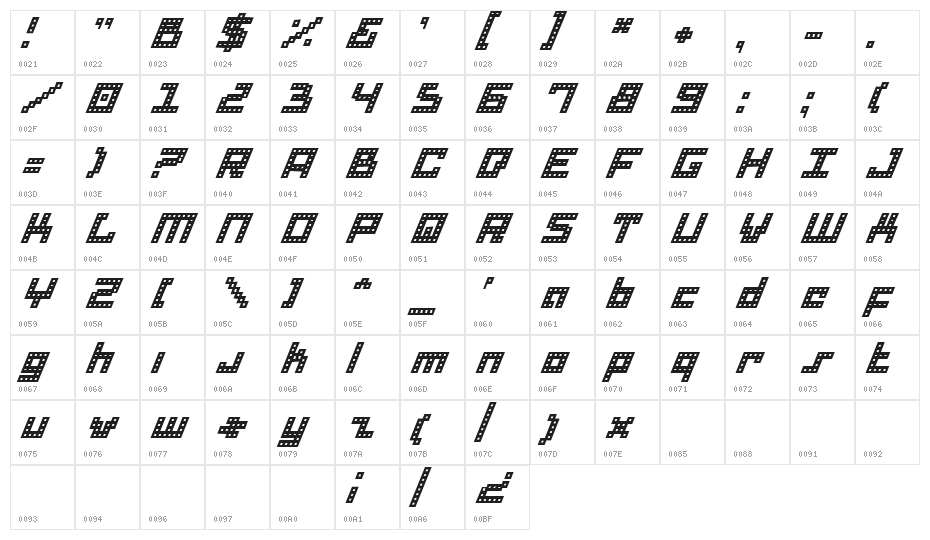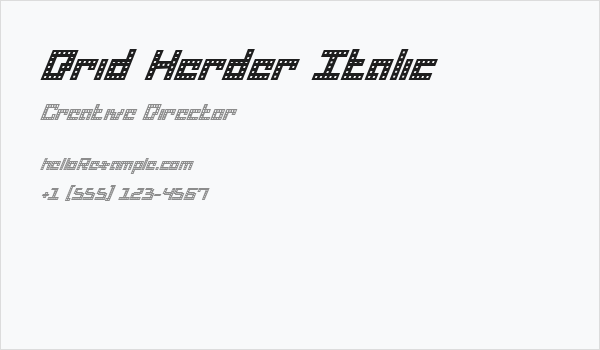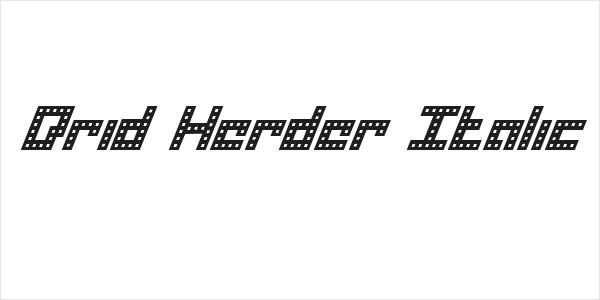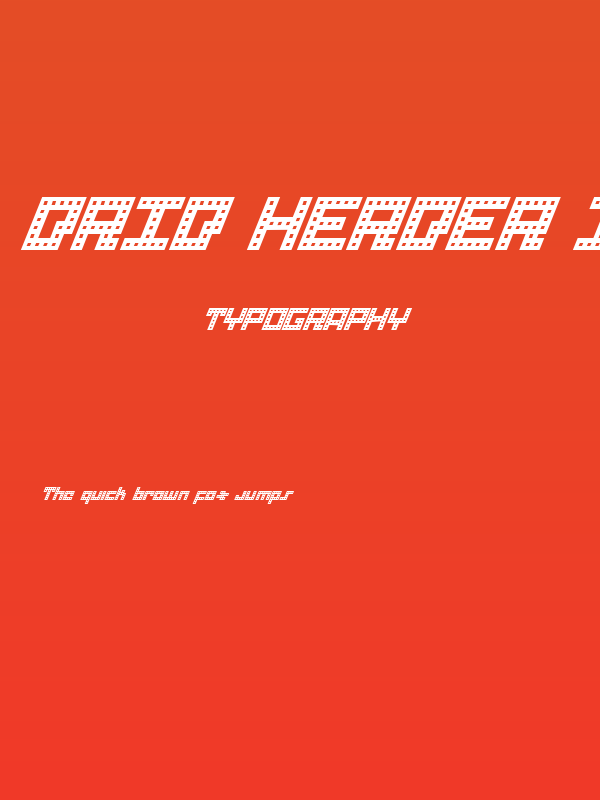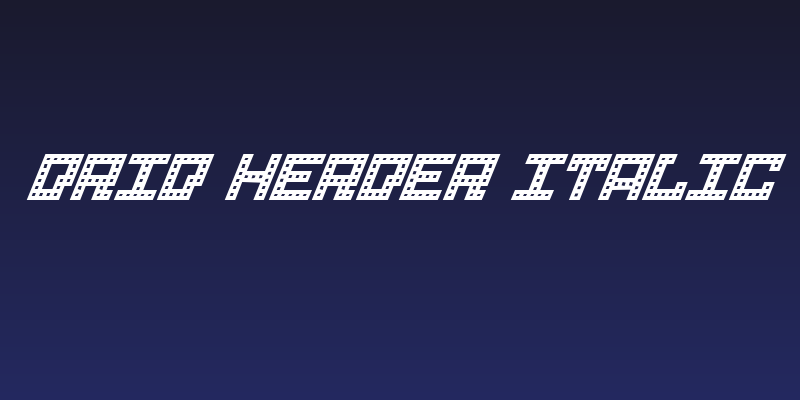
Drid Herder Italic Font
Drid Herder Italic Description
This font features a unique, decorative style with a dotted pattern that gives it a digital, retro feel. The characters are italicized, adding a sense of motion and dynamism. Each letter is composed of a series of small squares, creating a pixelated effect that is both modern and reminiscent of early digital displays. The font maintains a consistent stroke width throughout, with medium contrast between the filled and unfilled areas. Its geometric structure and angular lines make it stand out, while the italic slant adds a touch of elegance.
| Overall Style | Modern, Retro |
| Use Case | Logos, Posters, Digital Displays |
| Proposed Projects | Ideal for digital-themed projects, retro video games, tech logos, and futuristic posters. |